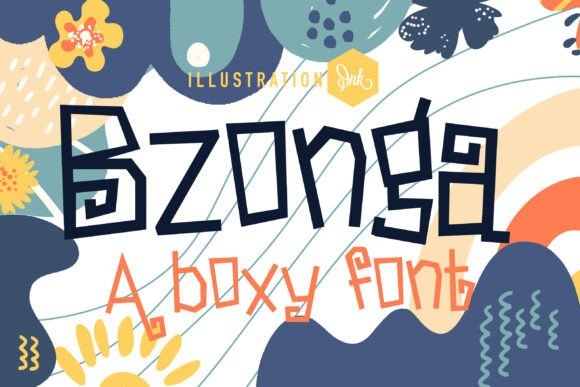
The Art of Hand-Crafted Typography: Introducing the Bzonga Font
As a designer, there’s nothing quite like the thrill of discovering a new font that perfectly captures the essence of your creative vision. For me, it was a late-night brainstorming session, surrounded by scribbled notes and half-finished sketches, when I stumbled upon the perfect combination of lines and curves – the Bzonga Font.
With its distinctive boxy, rectangular lettering, this hand-crafted sans serif font is a game-changer for designers looking to add a touch of personality to their projects. Whether you’re crafting invitations, greeting cards, or other bespoke items, the Bzonga Font’s versatility and charm make it an invaluable asset to your design arsenal.
Bzonga Font Key Features
- Font Family: Bzonga Font is a unique, custom-designed font family.
- Unique Characteristics: Bzonga Font features a distinctive blend of modern and traditional elements, making it suitable for a wide range of applications, from corporate branding to creative projects.
Bzonga Font Review
I recently had the chance to work with the Bzonga Font, and I must say it’s a unique addition to any design project. ✨ The font’s quirky, handwritten feel instantly adds a touch of personality to any text. The Bzonga Font is perfect for creating a fun, informal atmosphere in branding, advertisements, or even web design.
One of the standout features of Bzonga is its versatility. ✨ It can be used in a wide range of applications, from headings to body text, and still maintain its charm. The font also comes in various weights, making it easy to customize and adjust to your design needs.
However, there are a few limitations to consider. ⚠️ The font’s lack of consistency in some letters can make it difficult to read, especially in large blocks of text. Additionally, the font may not be the best choice for formal or professional designs, as its informal feel may come across as unprofessional.
Overall Impression: I’d give the Bzonga Font a solid 3.5 out of 5 stars. While it’s a great addition to any design project, it’s essential to weigh its limitations and consider your design goals before using it.
Recommendation: The Bzonga Font is perfect for designers looking to add a touch of whimsy and personality to their projects. However, it may not be the best choice for formal or professional designs.
Pros and Cons:
- ✨ Unique, quirky feel
- ✨ Versatile and easy to customize
- ⚠️ Lack of consistency in some letters
- ⚠️ May not be suitable for formal or professional designs
Getting the Most Out of Bzonga Font
To get the most out of Bzonga Font, try the following tips:
- Combine Bzonga Font with other fonts to create a visually appealing contrast.
- Use Bzonga Font for headings or titles to add emphasis.
Bzonga Font is commonly used for:
- Graphic design projects, such as posters, flyers, and brochures.
- Typography-based art and creative projects. Alternatives to Bzonga Font for Designers